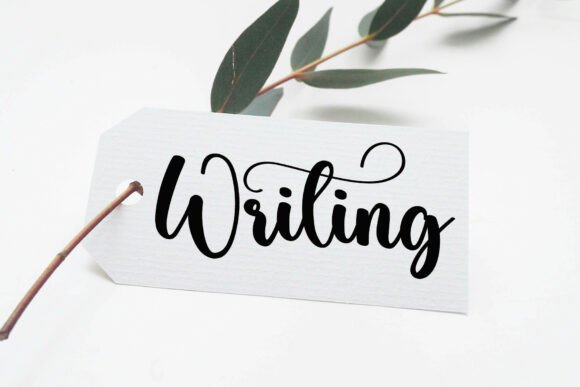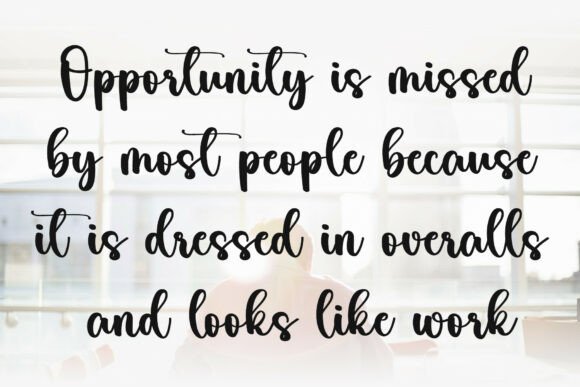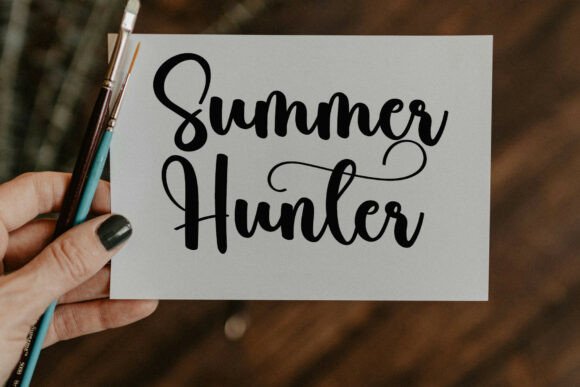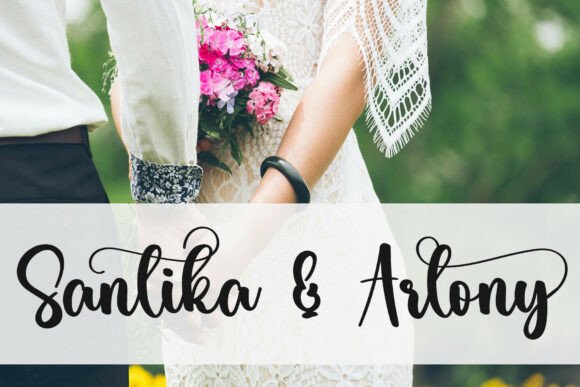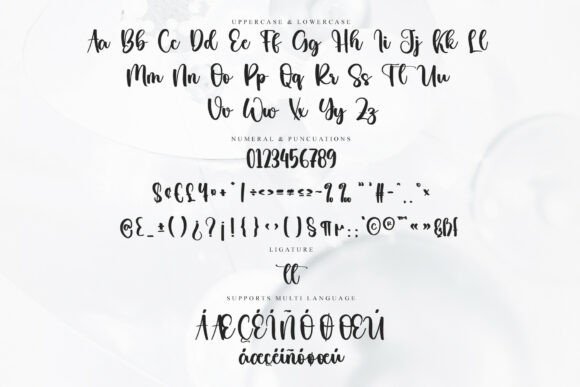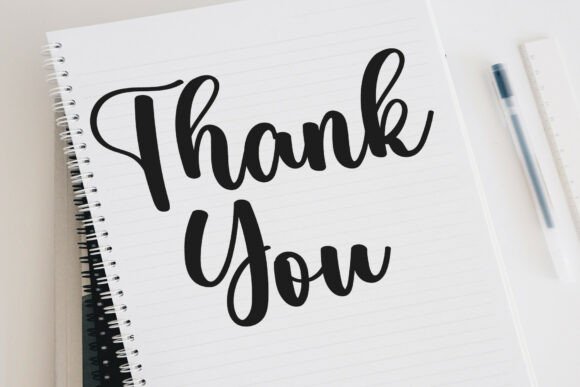
Introducing Easter Bunny – A Stunning Premium Script Font for Elegance and Versatility
Are you a designer or crafter looking for a font that adds a touch of elegance and sophistication to your projects? Look no further than the Easter Bunny font, a luxurious premium script font designed to bring a high-end feel to your designs. In this article, we’ll dive into the features and benefits of the Easter Bunny font, and explore how it can elevate your branding, invitations, social media, and more.
What is Easter Bunny Font?
The Easter Bunny font is a stunning premium script font that boasts a luxurious handwritten style, perfect for adding a personal touch to any project. With its natural flow and graceful curves, this font exudes elegance and sophistication, making it ideal for high-end designs. Whether you’re creating logos, branding materials, invitations, or social media graphics, the Easter Bunny font is sure to impress.
Why Choose Easter Bunny Font?
So, what sets the Easter Bunny font apart from other fonts on the market? Here are just a few reasons why designers and crafters are falling in love with this stunning script font:
- Luxurious Handwritten Style β The Easter Bunny font features a natural flow and graceful curves, giving it a high-end feel that’s perfect for luxury brands and designs.
- Premium Quality β This font is crisp, clean, and optimized for both print and digital use, ensuring that your designs look professional and polished.
- Multilingual Support β The Easter Bunny font includes special characters (Γ¨, Γ±, ΓΌ) and multilingual symbols, making it perfect for designers working with international clients or creating multilingual content.
The Easter Bunny font is incredibly versatile, making it perfect for a wide range of projects, including:
- Logos β Create a stunning logo that showcases your brand’s personality and style.
- Wedding Stationery β Add a touch of elegance to your wedding invitations, save-the-dates, and other stationery.
- Product Packaging β Elevate your product packaging with a luxurious font that reflects your brand’s high-end quality.
- Instagram Quotes β Create beautiful, eye-catching quotes that showcase your brand’s personality and style.
- Social Media Graphics β Use the Easter Bunny font to create stunning social media graphics that grab attention and drive engagement.
If you’re looking for a font that adds a touch of elegance and sophistication to your designs, look no further than the Easter Bunny font. With its luxurious handwritten style, premium quality, and multilingual support, this font is perfect for designers and crafters who want to create high-end designs that impress. Whether you’re creating logos, branding materials, invitations, or social media graphics, the Easter Bunny font is sure to elevate your designs to the next level.